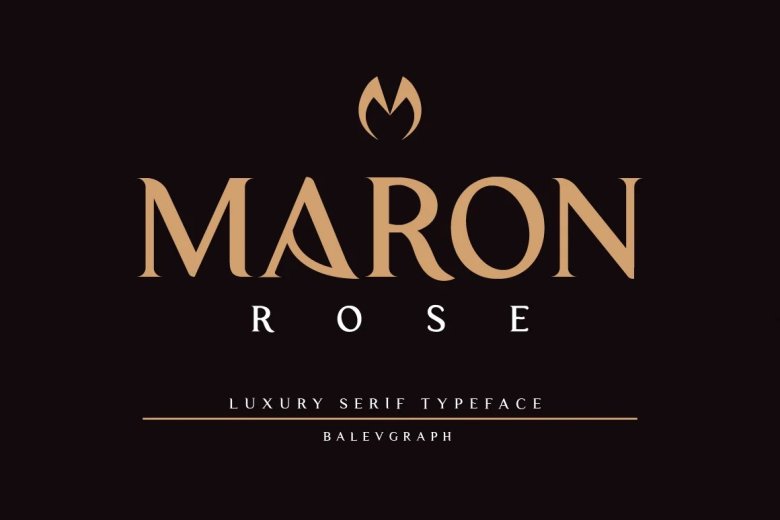
Mron Rose Font
Maron Rose is a luxurious and stylish serif typeface. It will elevate a wide range of crafting ideas, from cards, to branding, labels, logos and much more.
Mron Rose Serif Typeface